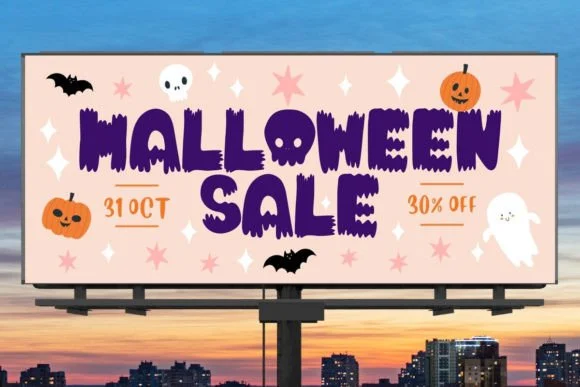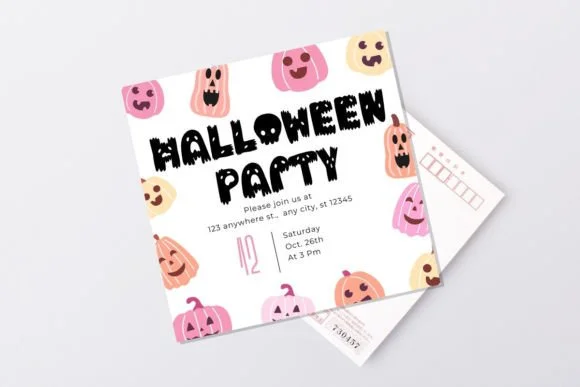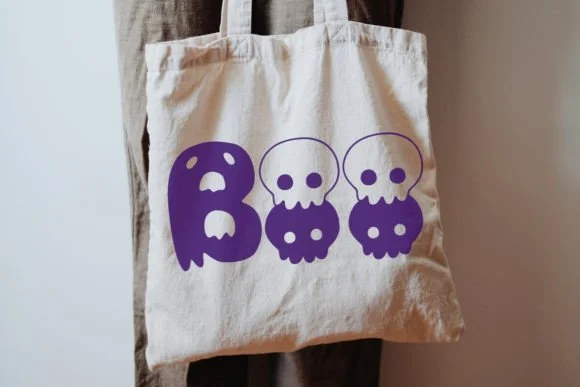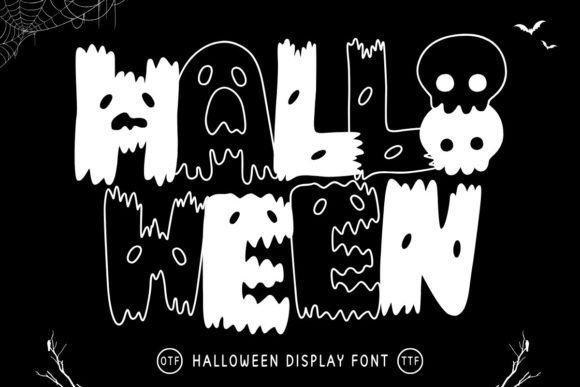
H Halloween Font Font
This iconic font is perfect for Halloween event announcements, October festival displays, trick-or-treat neighborhood signs, Halloween costume party invitations, spooky seasonal advertising, haunted attraction marketing, Halloween community events, October celebration branding, seasonal horror displays, and essential Halloween messaging materials.
Halloween Font is exciting because it represents the foundational typography that captures the essential spirit and enduring appeal of Halloween as a cultural phenomenon through its authentically designed letterforms that embody everything that makes October 31st the most supernaturally celebrated night of the year. The font features perfectly balanced characters with Halloween proportions and iconic details that reflect the rich history of Halloween traditions, from ancient Samhain festivals to modern neighborhood trick-or-treating, incorporating classic spooky flourishes and seasonal elements that create typography as fundamental and recognizable as jack-o'-lanterns and black cats. Each letter showcases the universal appeal and cross-generational magic that makes Halloween such a beloved and enduring celebration, with traditional curves and iconic accents that transform ordinary text into expressions of pure Halloween essence that connect modern celebrations to centuries of supernatural tradition and community celebration.
The Halloween Font family includes essential style variations: Regular, Bold, Light, Traditional, and Classic versions. The collection features special Halloween elements including pumpkin accents, traditional flourishes, iconic details, and seasonal ornaments. Additional components include Halloween borders, seasonal frames, traditional decorations, and timelessly spooky ornamental designs that enhance the font's Halloween appeal and create cohesive October celebration themes.
Halloween tradition keepers and October celebration organizers will find Halloween Font to be an indispensable resource for creating fundamentally authentic Halloween communications that honor the deep roots and universal appeal of Halloween as humanity's most beloved supernatural celebration. This essentially crafted font transforms ordinary October messaging into Halloween expressions that resonate with celebrants of all ages who understand that Halloween represents more than just one night - it's a celebration of imagination, community, and the delightful human fascination with the mysterious and supernatural.
The typeface includes comprehensive character support with traditional Halloween styling that maintains excellent readability while conveying the iconic spirit and seasonal essence of classic Halloween celebrations. The font's fundamentally Halloween design ensures authentically seasonal results across both community celebration applications and commercial Halloween productions.
Perfect for Halloween traditions, October celebrations, community events, and essential seasonal marketing, this font delivers fundamentally Halloween visual impact that communicates tradition, community spirit, and the timeless appeal that makes Halloween such an enduringly magical and universally celebrated expression of human creativity and supernatural fascination.